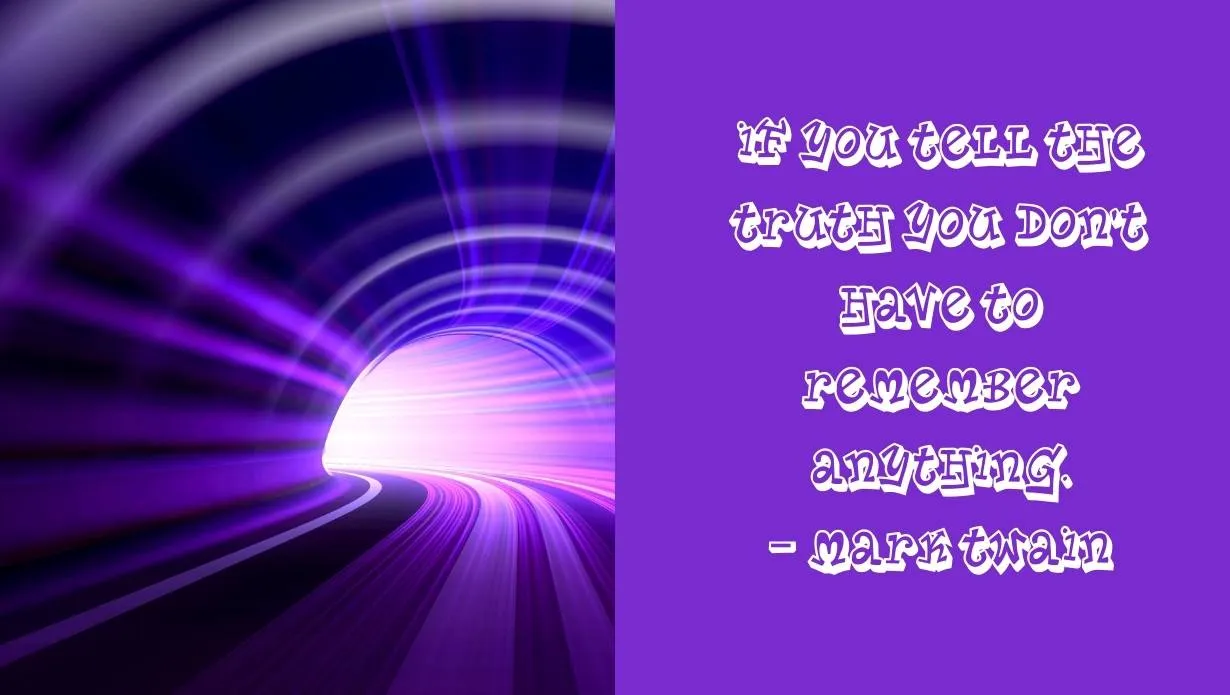
Now, we are introducing the best fantastic typeface style. This typeface name is Planet Benson Font. It has outstanding font styles and it was designed by a well-known graphic designer called Ray Larabie. This typeface belongs to the Display typeface family.
This wonderful and eye-catching font style is available in a single regular style. It has a very attractive and eye-catching look appearance for the viewers. This typeface is available in both file formats OpenType and TrueType.
Planet Benson Font Family
| Name | Planet Benson Font |
| Designer | Ray Larabie |